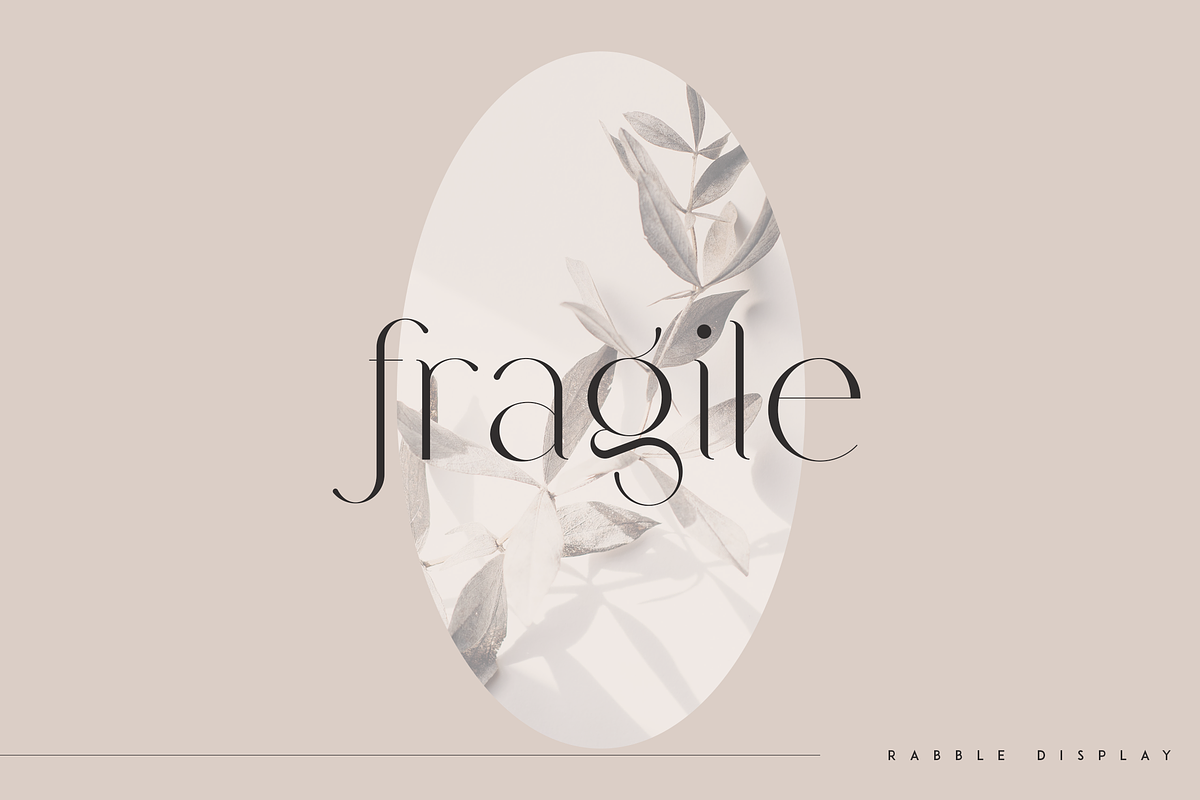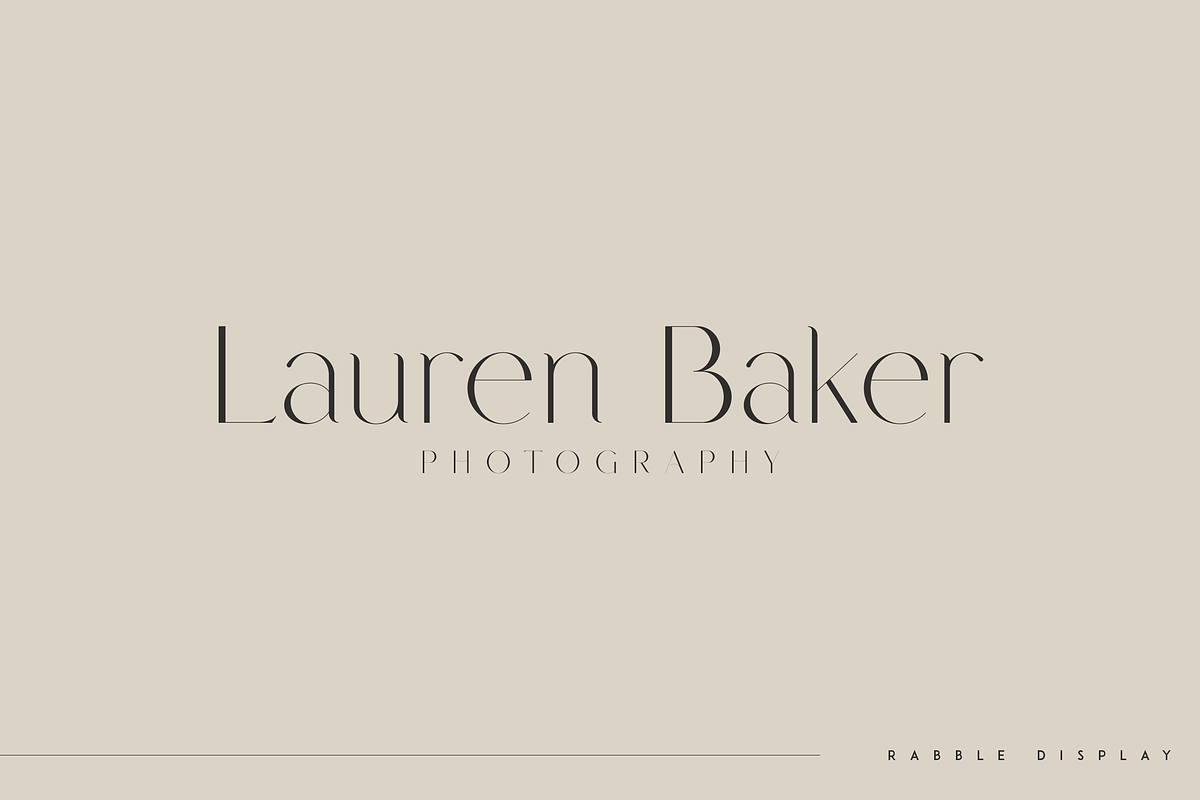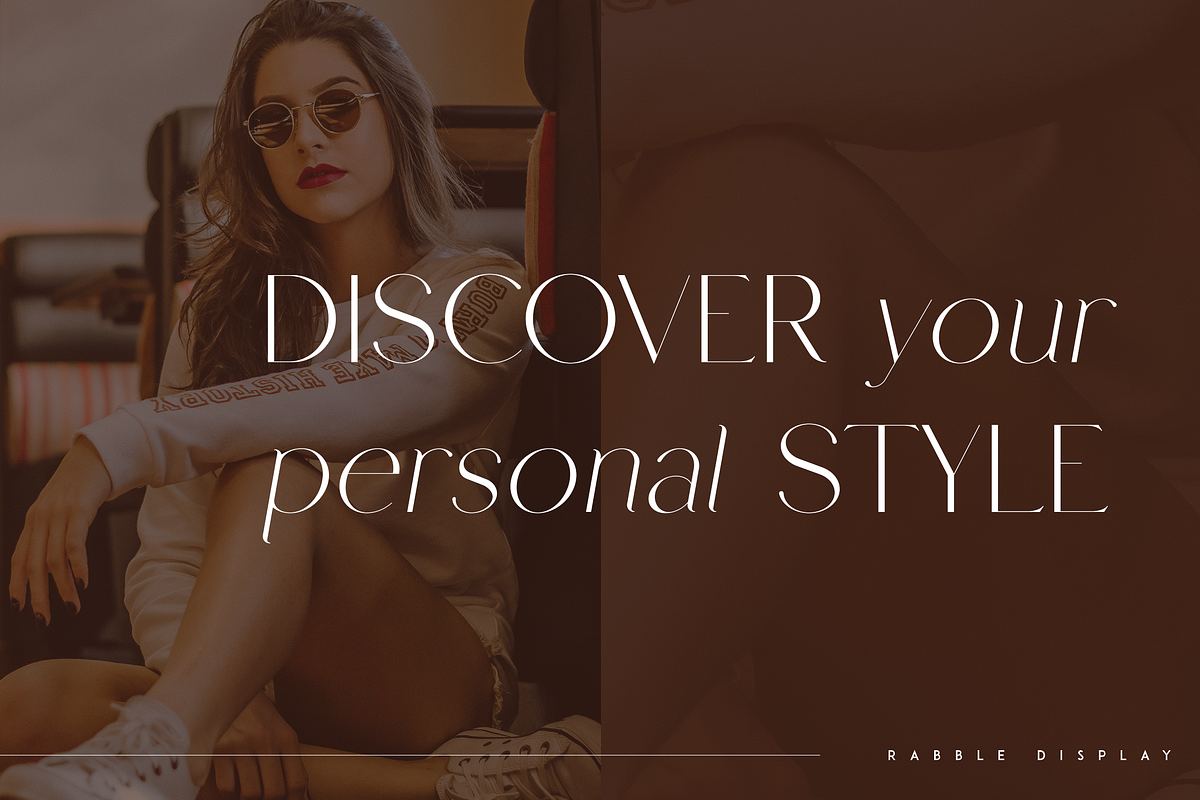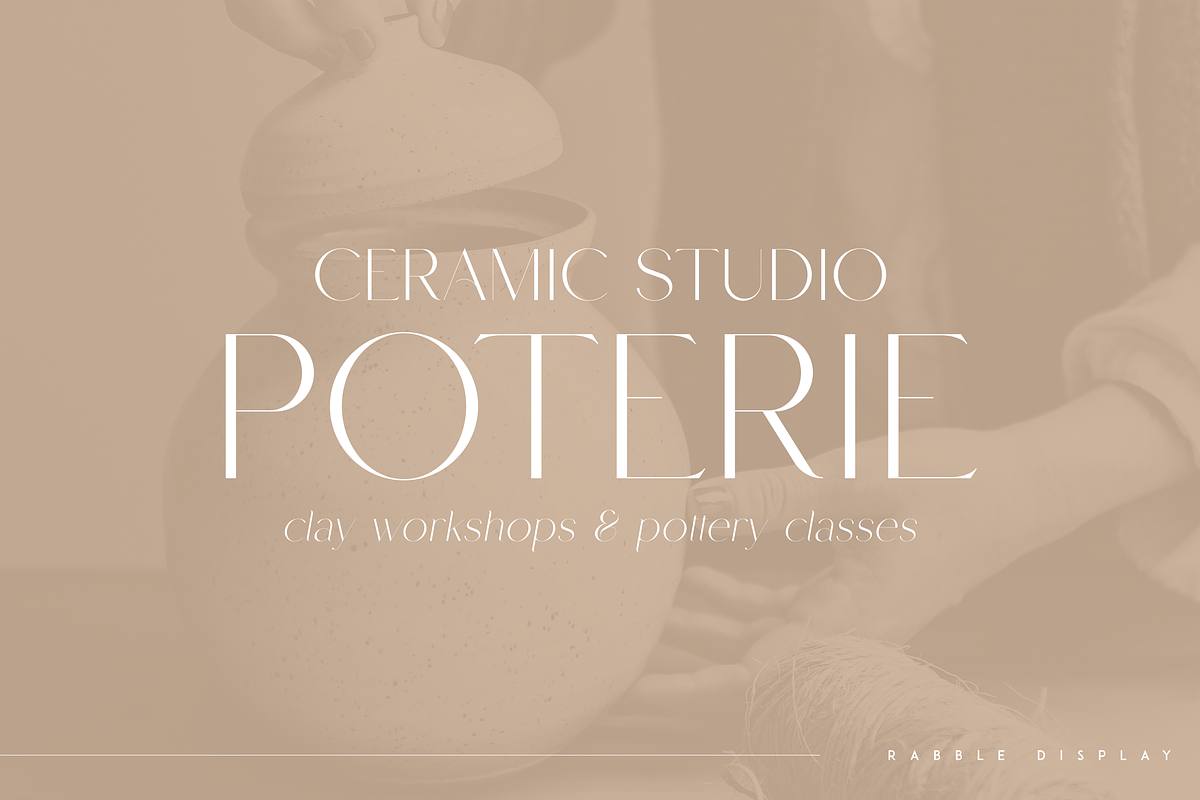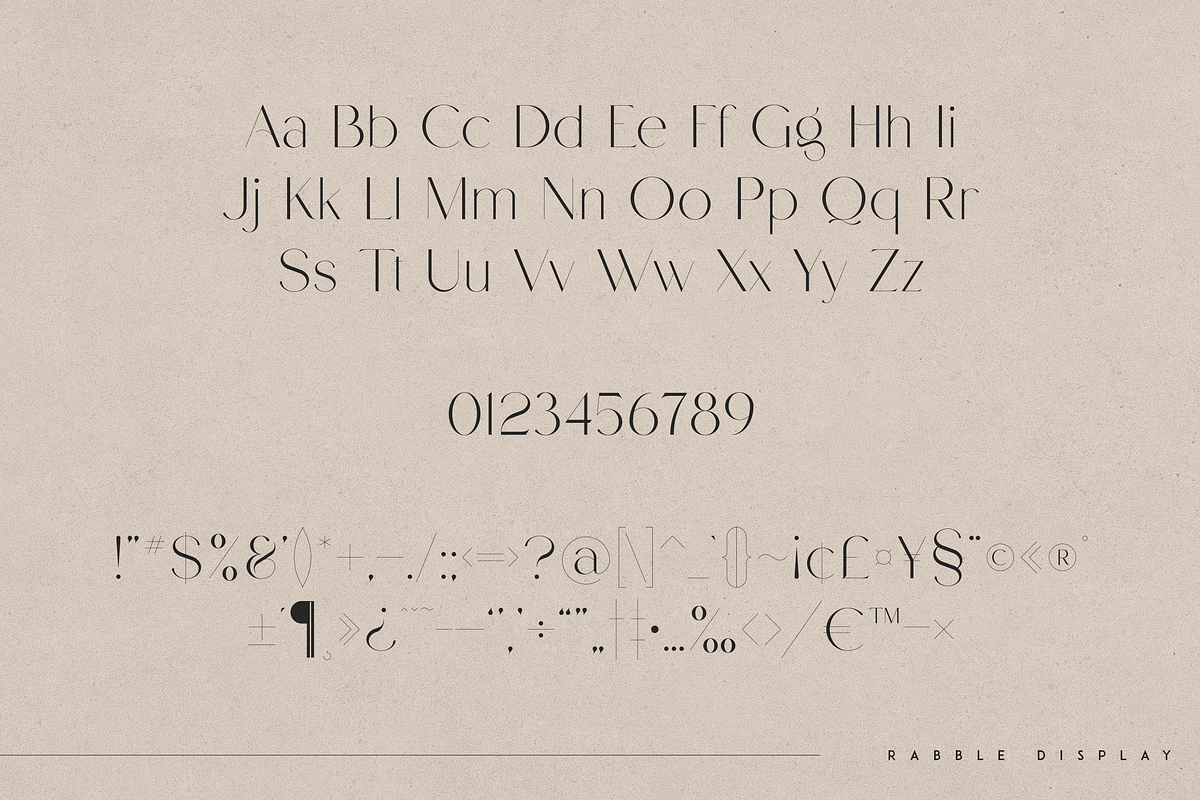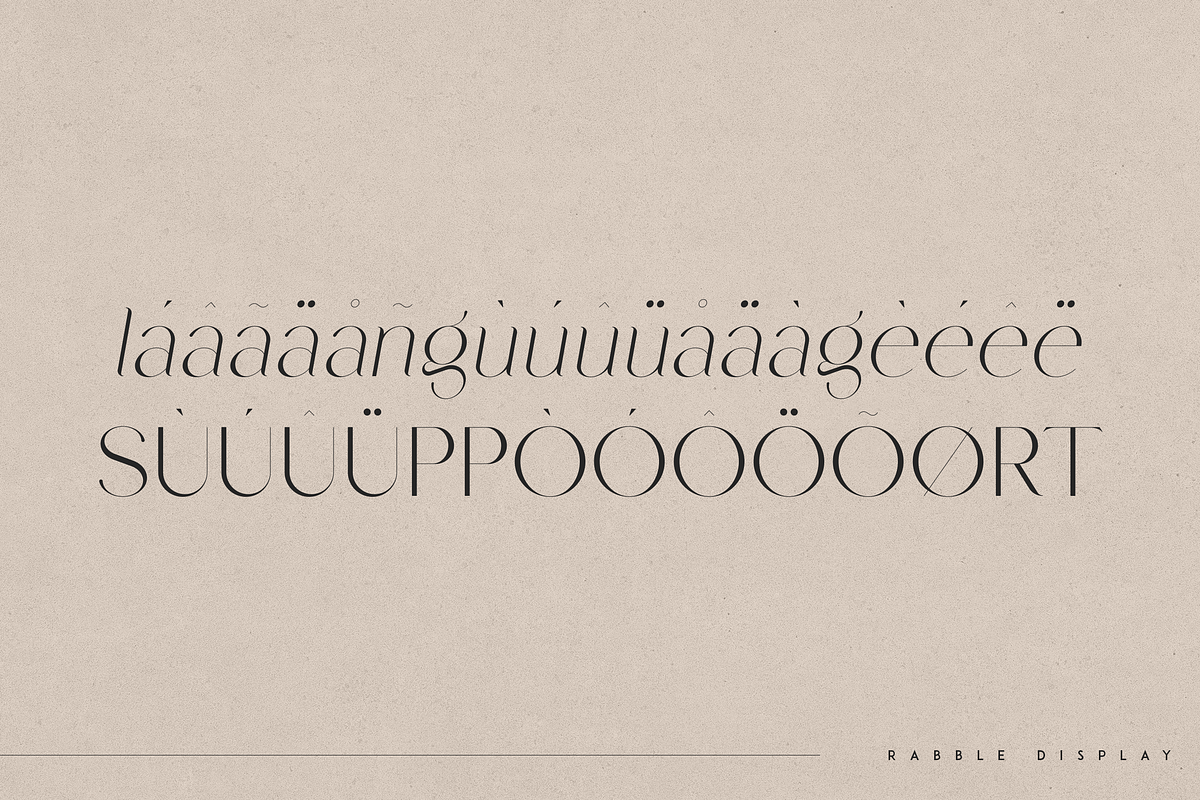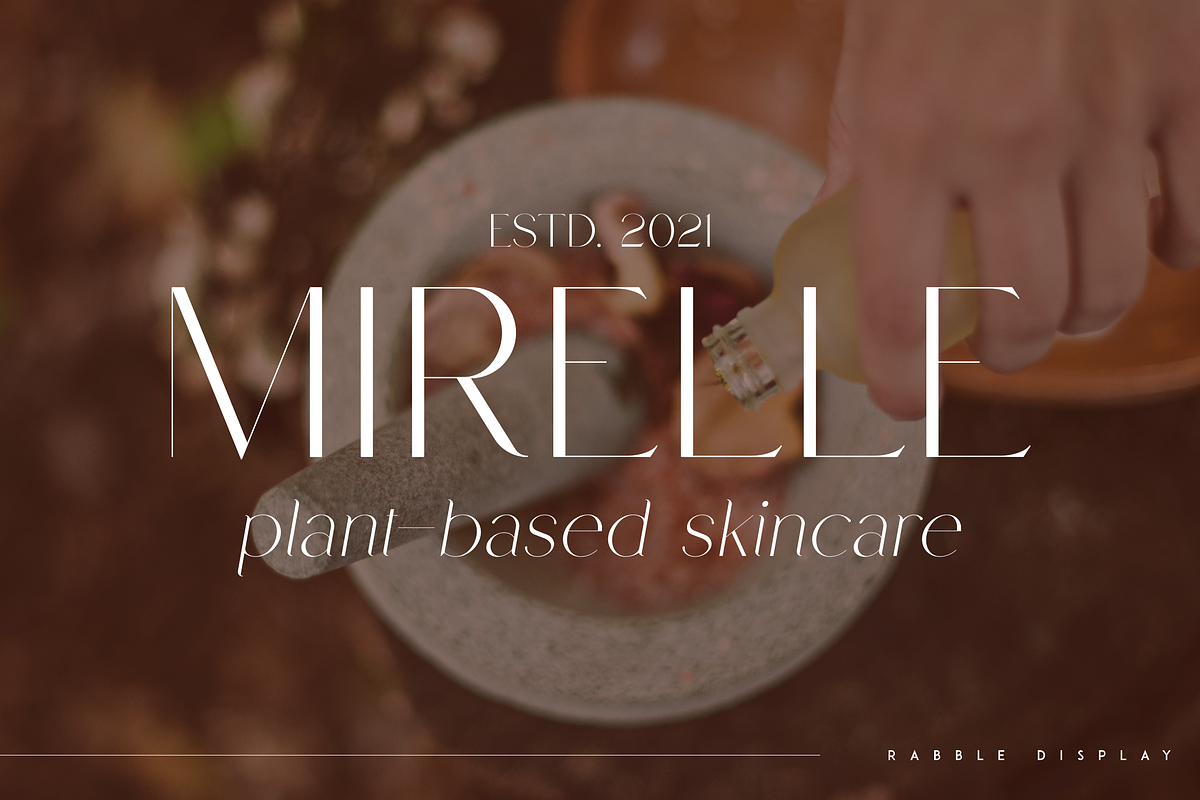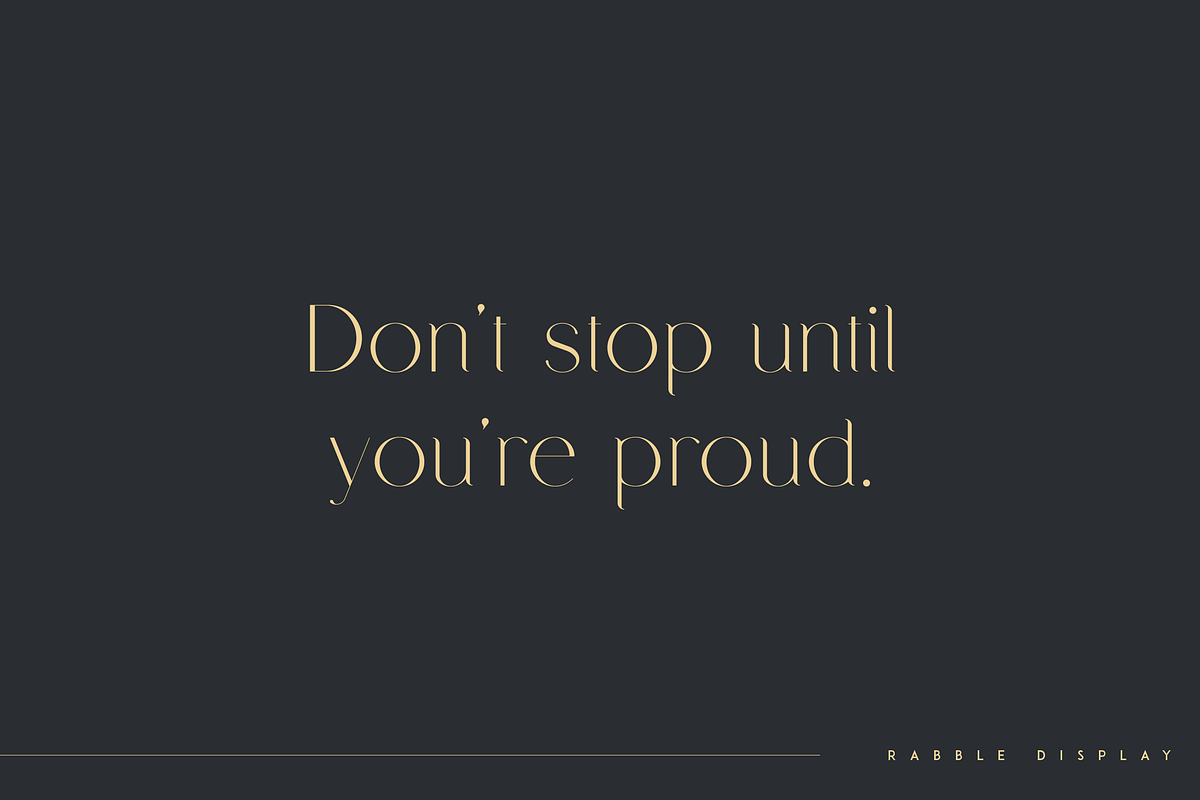
Rabble - display typeface
Introducing Rabble - display typeface - 4 fonts
Rabble is fragile and vintage typeface loaded with 4 fonts and multilingual support. It's a very versatile font that works great in large and small sizes.
This font is perfect for branding projects, home-ware designs, product packaging, magazine headers - or simply as a stylish text overlay to any background image.
- Uppercase, lowercase, numeral, punctuation & Symbol
- 2 alternate styles
- Italic